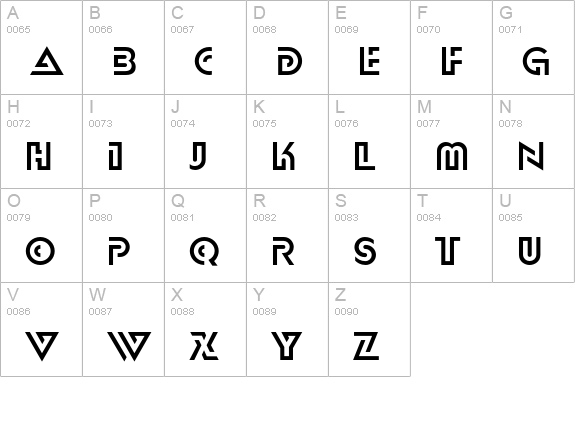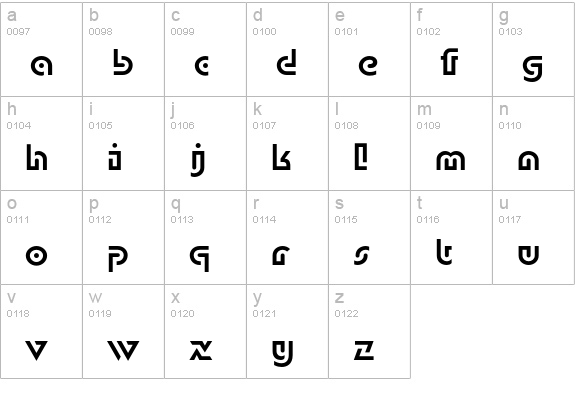
PT Dublon Cyrillic Font Details
The PT Dublon Cyrillic font is a stunning display typeface that exudes elegance and sophistication. Its sleek and modern design is perfect for a wide range of creative projects, from branding to advertising to editorial design. With its clean lines and unique letterforms, PT Dublon Cyrillic stands out as a versatile and eye-catching choice for any design application. What's even better is that this exceptional font is available for free download at FontsMarket.com. That's right, you can enhance your projects with the beauty of PT Dublon Cyrillic without spending a dime. Don't miss out on the opportunity to elevate your designs with this exquisite typeface that is sure to make a lasting impression. Download PT Dublon Cyrillic today and let your creativity soar!